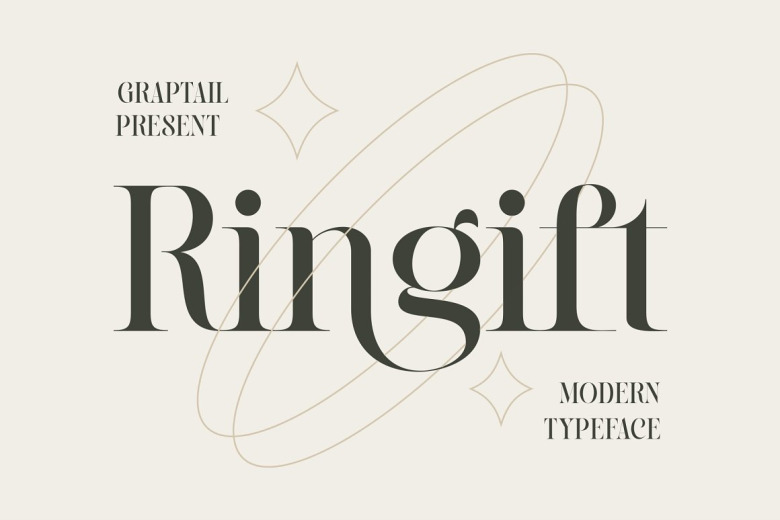
Ringift Font
Ringift is a modern serif font that provides an emotional sense to each curve. Along with 21 ligatures included, it can be used for generating the title of any and all your projects: Logo design, greeting cards, quotes, posters, branding, business cards, postcards, movie titles, blog headers, art quotations, typography alike magazines and others you might think of.
Ringift Serif Font